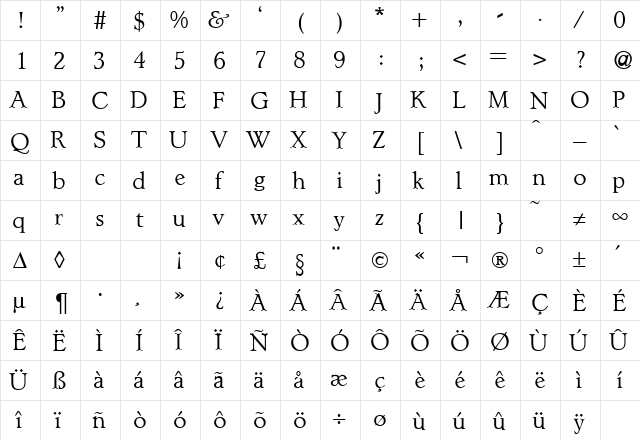
Lynchburg Regular
Design Context for Lynchburg Typeface
Lynchburg is a composed and adaptable typeface that performs quietly and consistently across a wide range of design contexts.